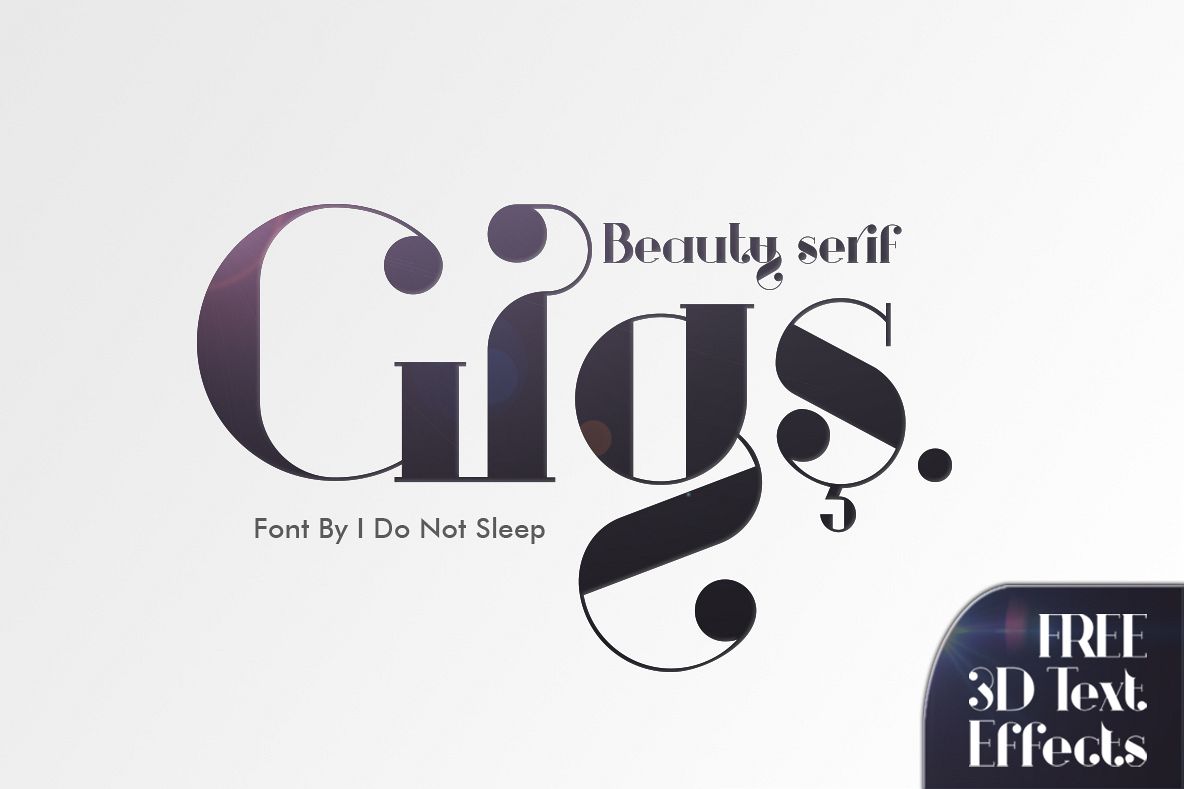
Gigs Beauty Serif Font
Gigs Regular
Gigs Italic
This font takes a long time to complete.
We call it Gigs font as a strict san-serif font, but the ligature feature makes this font beautiful and classy. This font makes your project design easier.
Gigs fonts are the right choice when you need it for a logo or cafe display project, fonts for magazine content, wedding card invitations and more. quotes for your social media, Branding, and others.
• Gigs Fonts have more than 350 Glyphs covering Letters
• 51 Ligature features
• Multilingual features
•  Alternates
• Regular & Italic Mode available